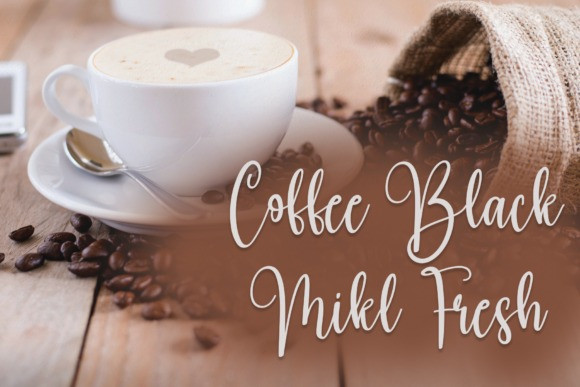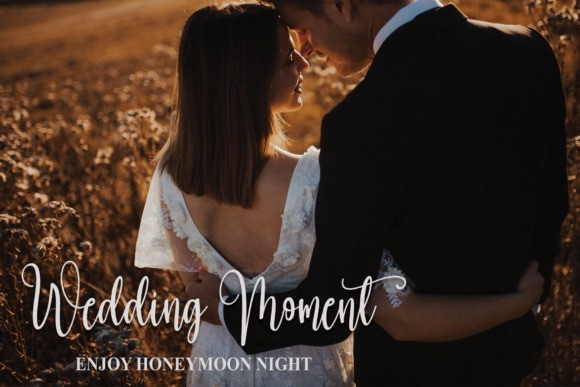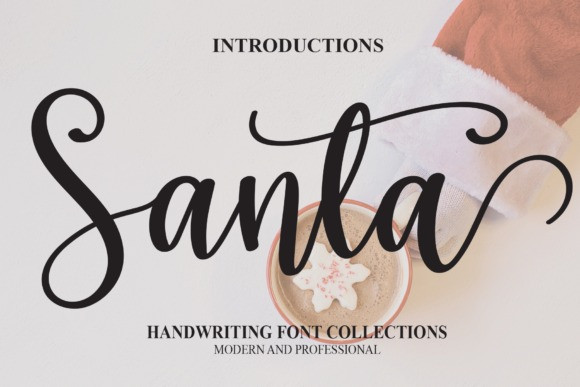
Santa Typeface
Santa Typeface is a beautiful and elegant handwritten font. Unique and poetic, this font is perfect for wall displays, wedding invitations, social media post logos, advertisements, product packaging, product designs, labels, photography, watermarks, invitations, stationery, and more.